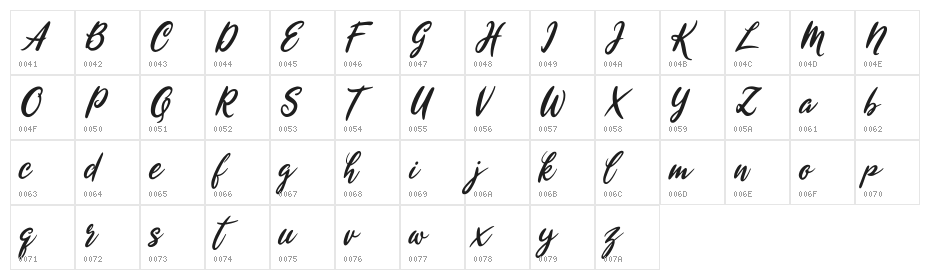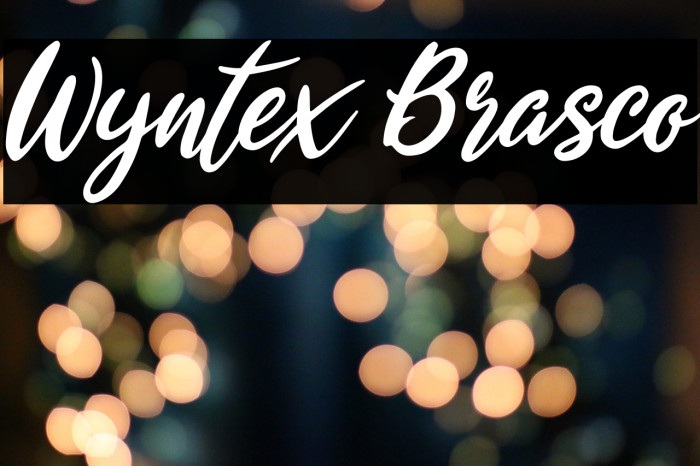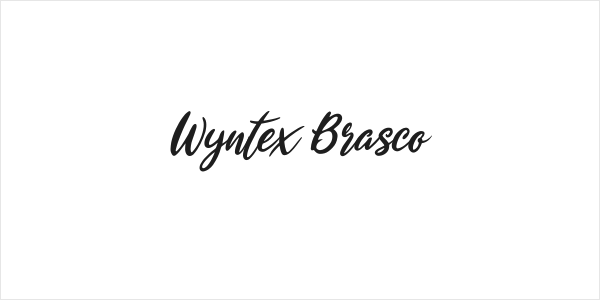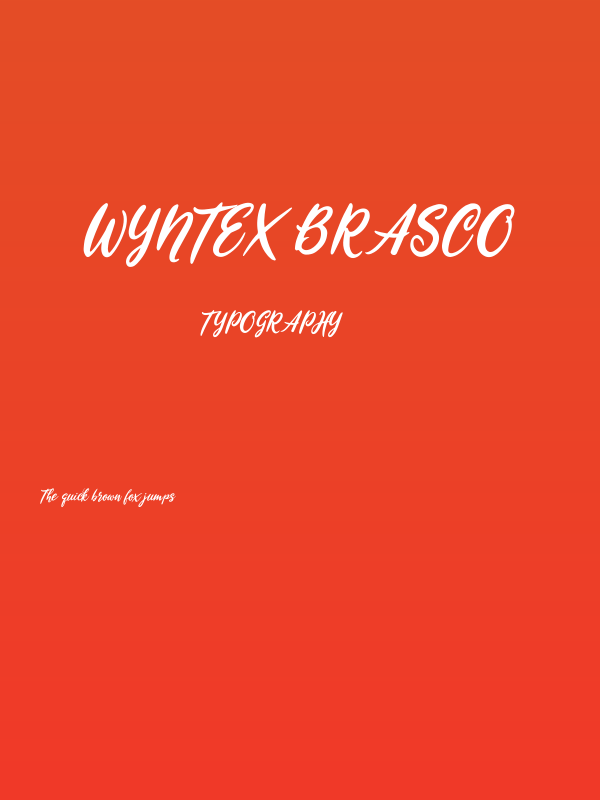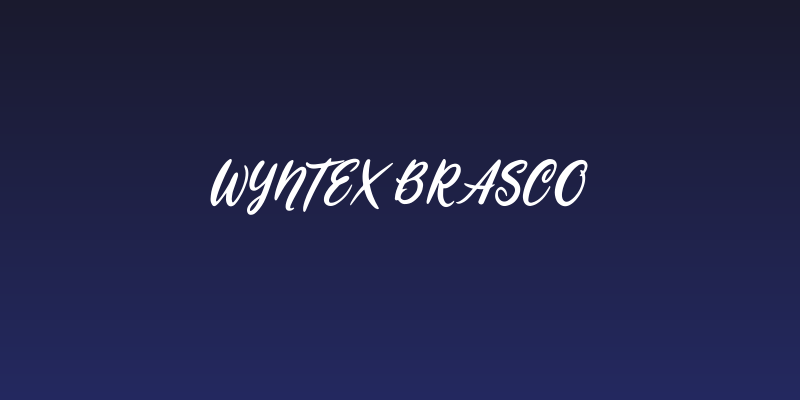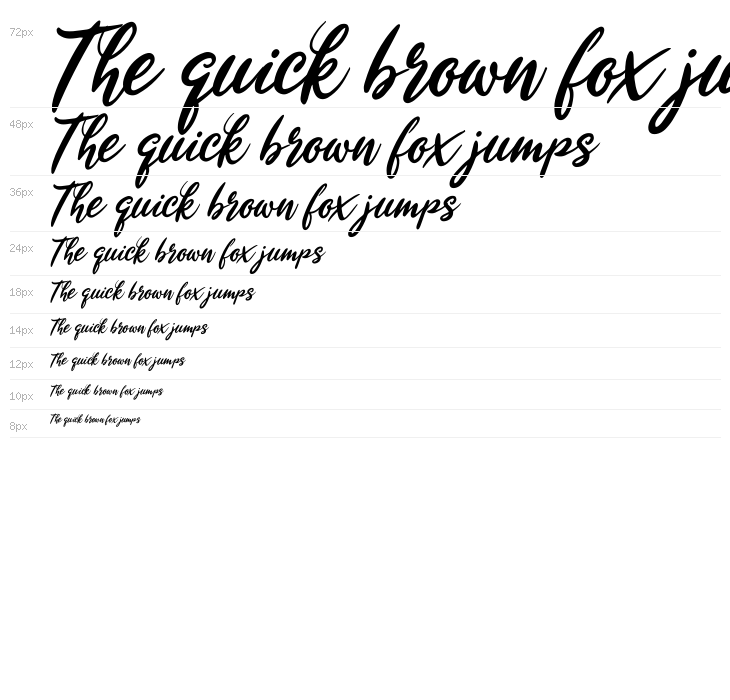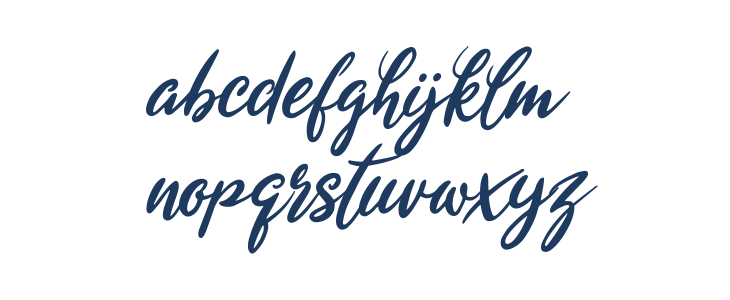
Wyntex Brasco Font
Wyntex Brasco Description
This font features a dynamic and flowing script style, characterized by its elegant and fluid letterforms. The strokes are smooth and connected, giving it a handwritten appearance that exudes sophistication and charm. The uppercase letters are bold and expressive, while the lowercase letters maintain a consistent flow, enhancing readability. The font's overall design is both artistic and versatile, making it suitable for various creative applications. Its unique style is perfect for projects that require a personal touch, such as invitations, greeting cards, and branding materials.
| Proposed Projects | Ideal for wedding invitations, greeting cards, logos, and branding materials. |